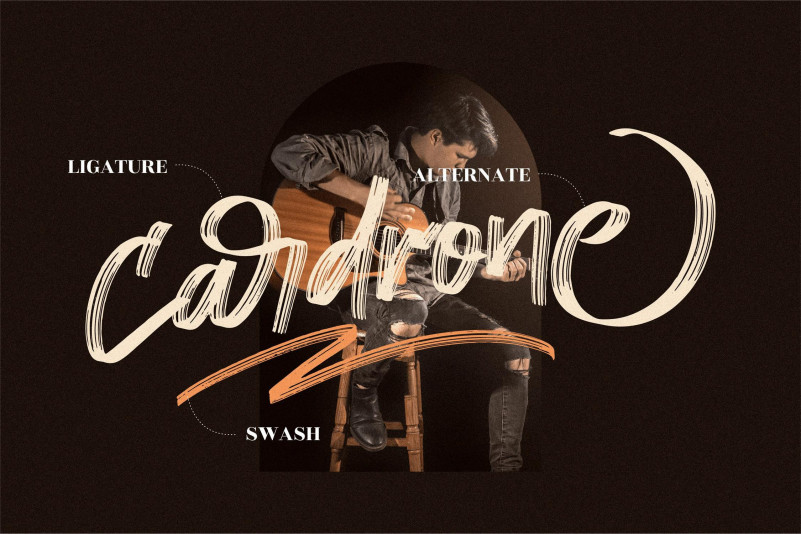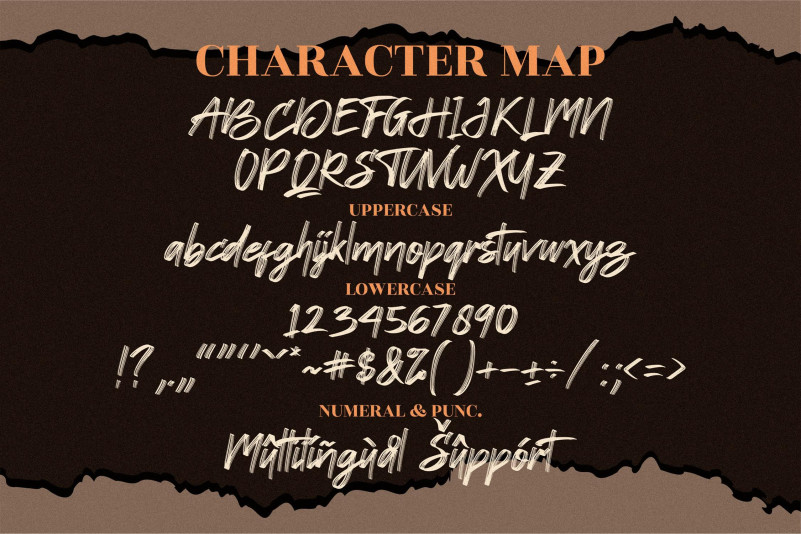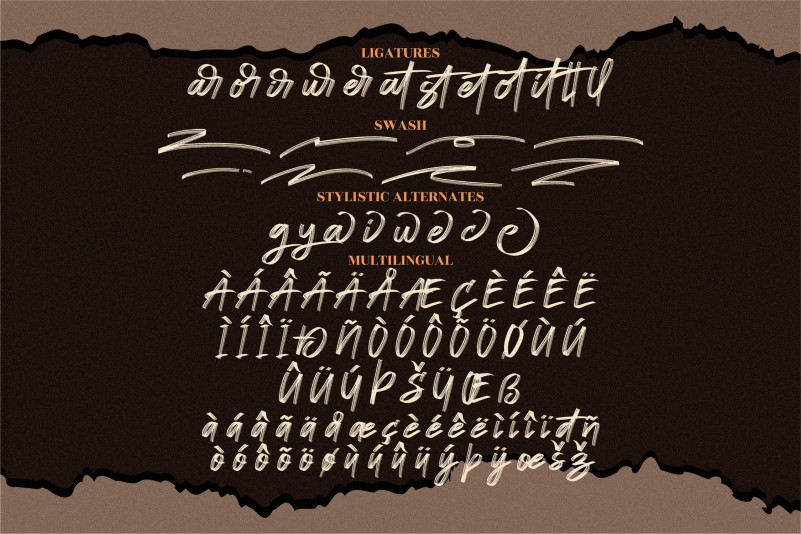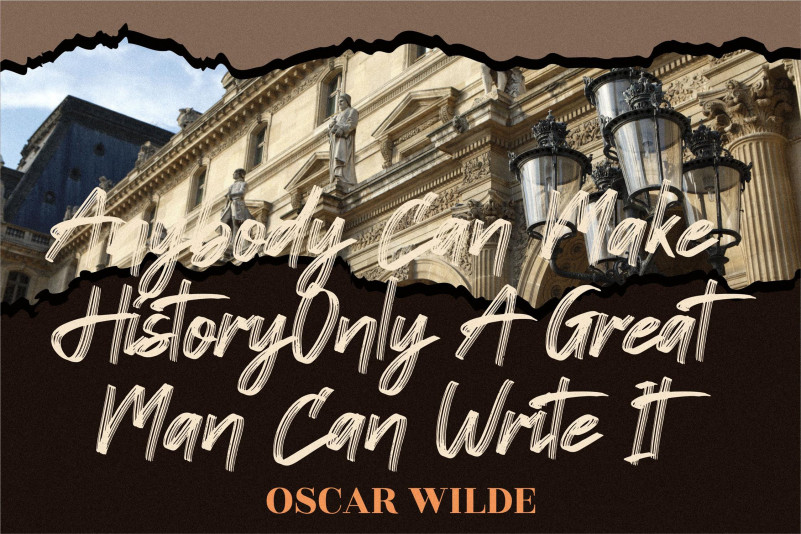
Cardrone Font
Cardrone Brush Font
This is a cursive and bold brushed script font. This font is neatly crafted and highly detailed. Whatever the topic, this font will be a wonderful asset to your font library, as it has the potential to enhance any creation.